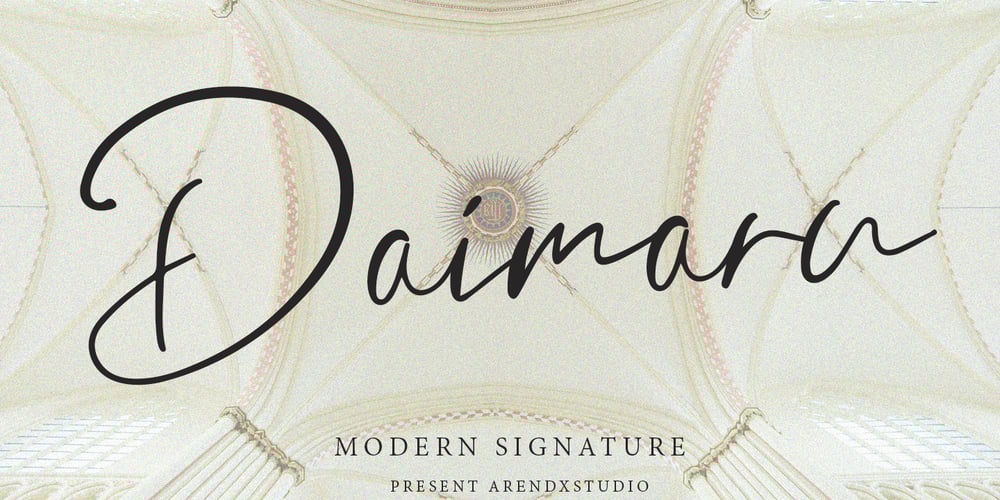
Daimaru Font Family was designed by Asep Rendi and published by Arendxstudio. Daimaru contains 1 styles and family package options. Introducing Daimaru Modern Signature font, hand made with brushing. Beautiful for wedding card design, logotype, website header, fashion design and any more. Features : • Character Set A-Z • Numerals & Punctuations (OpenType Standard) • Accents (Multilingual characters) • Ligature